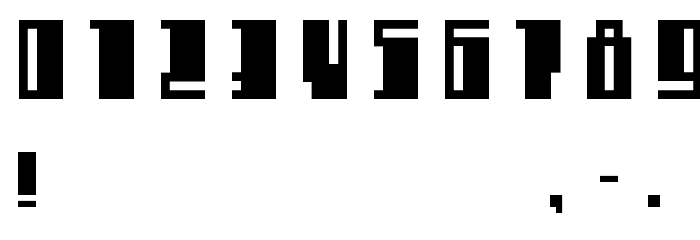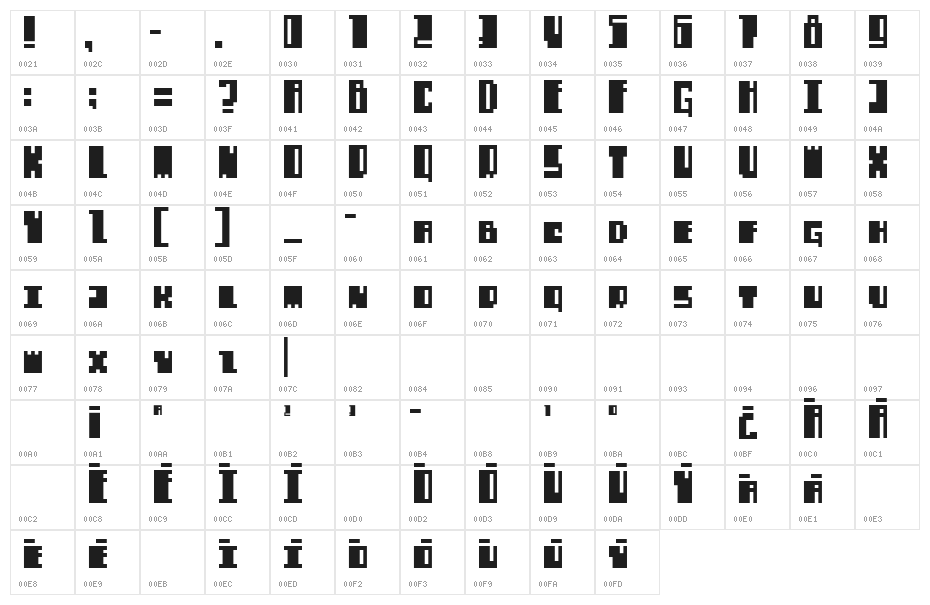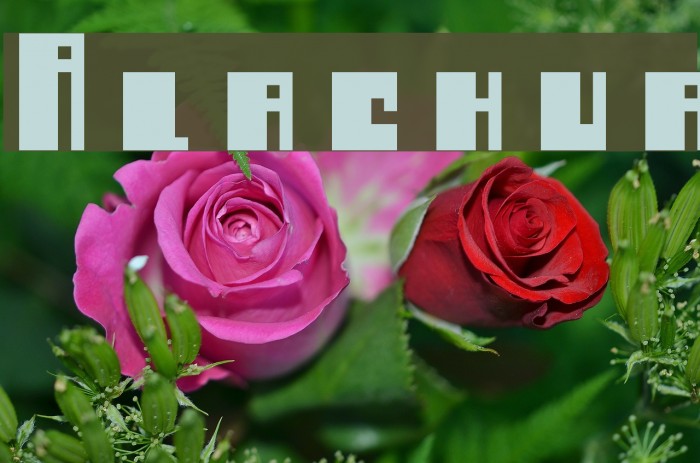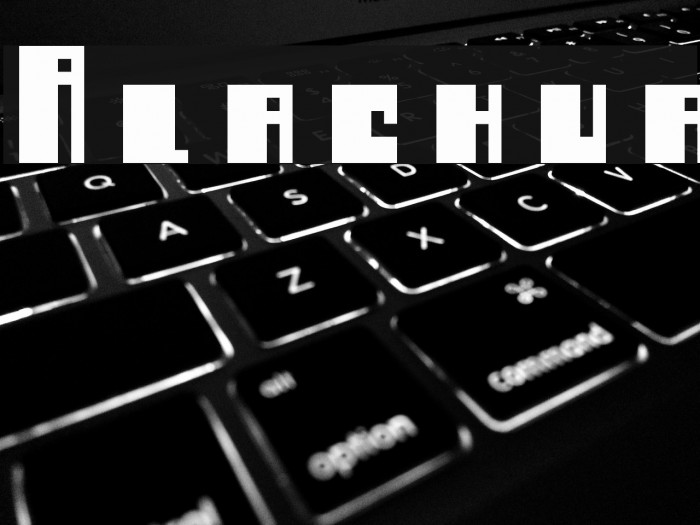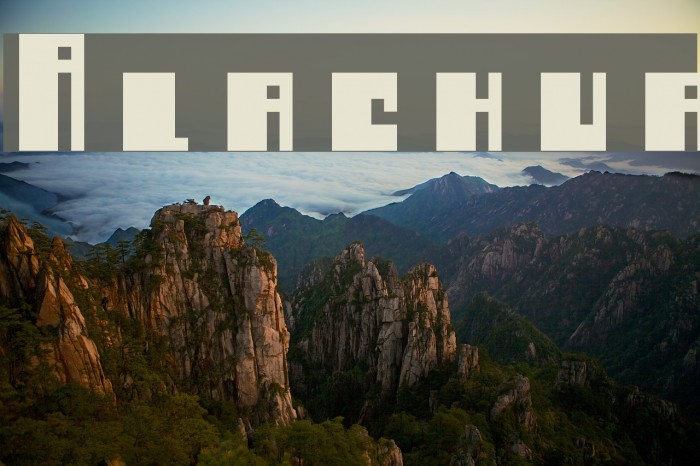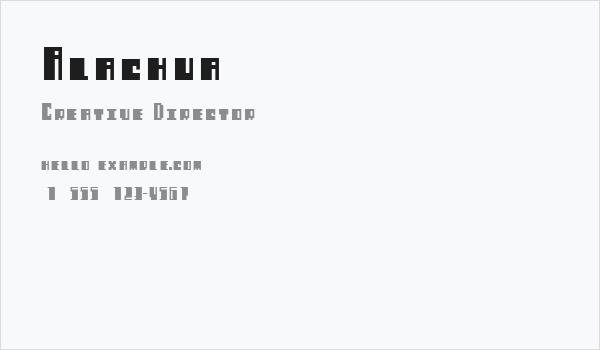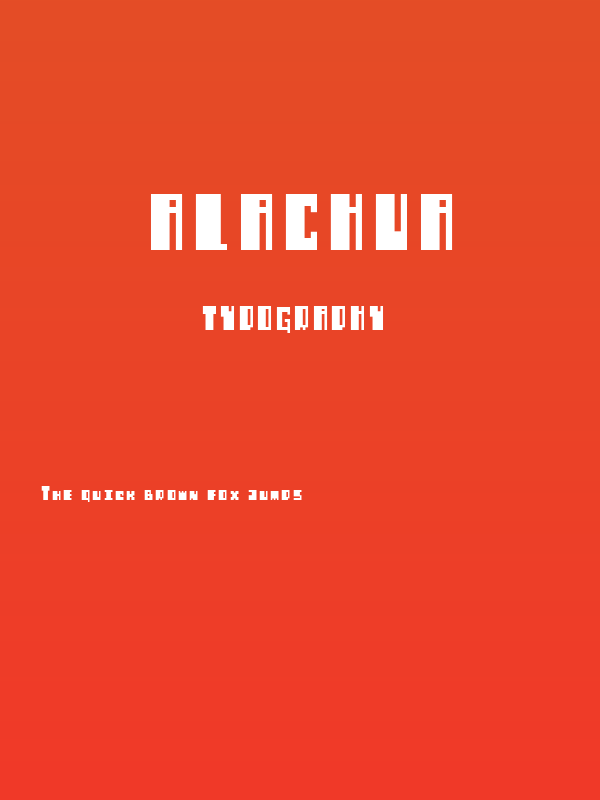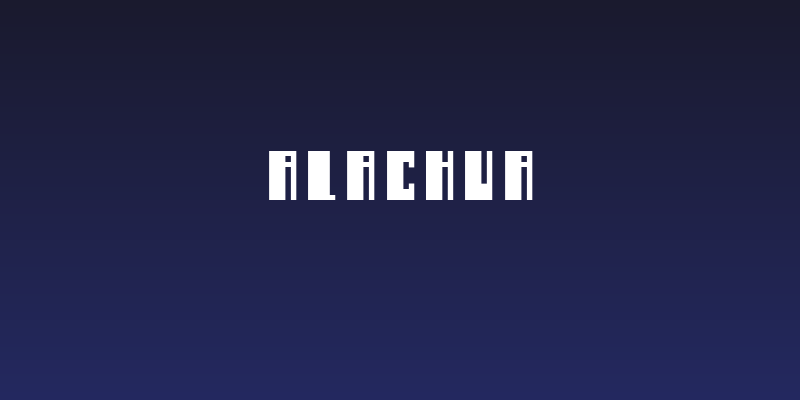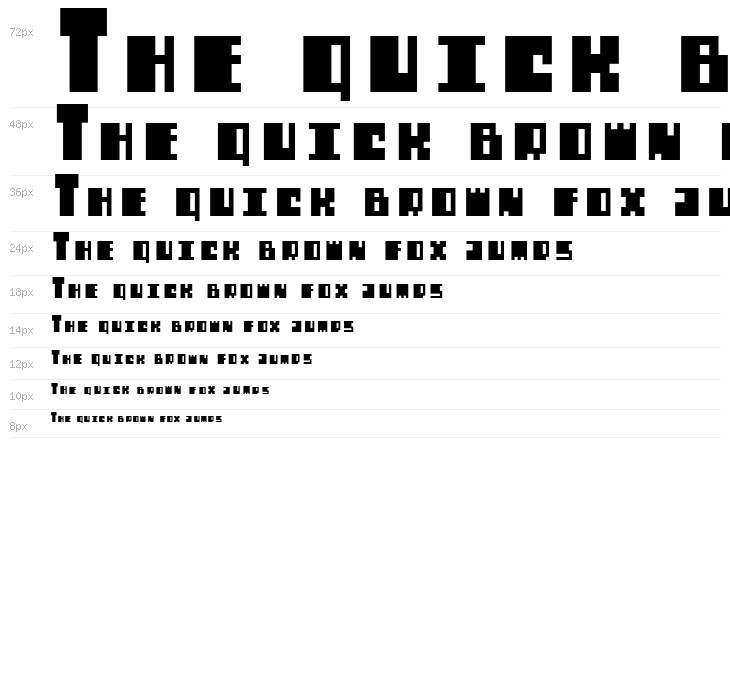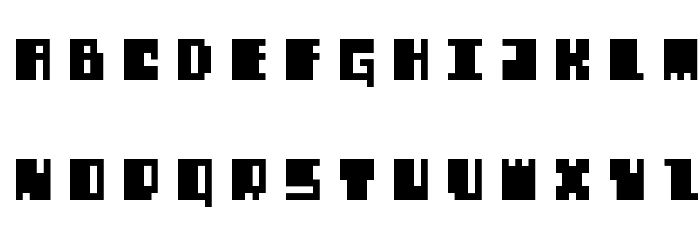
Alachua Font
Alachua Description
This font features a bold, geometric design with a distinctly modern and digital aesthetic. The characters are constructed with sharp, angular lines and a blocky appearance, creating a strong visual impact. The uppercase and lowercase letters maintain a consistent style, with minimal curves and a focus on straight edges. The numerals and special characters follow the same design principles, ensuring uniformity across the font. This typeface is highly legible and stands out due to its unique, futuristic look.